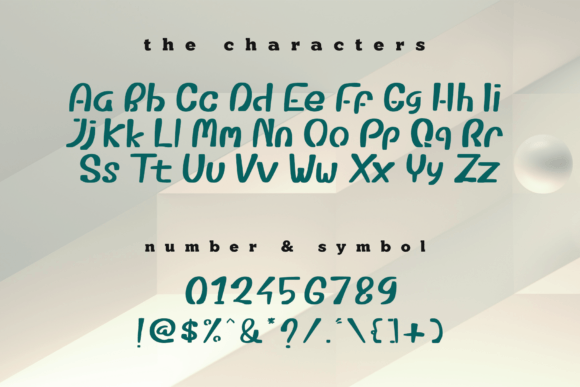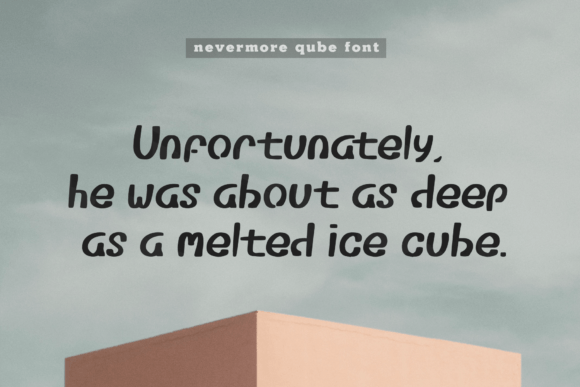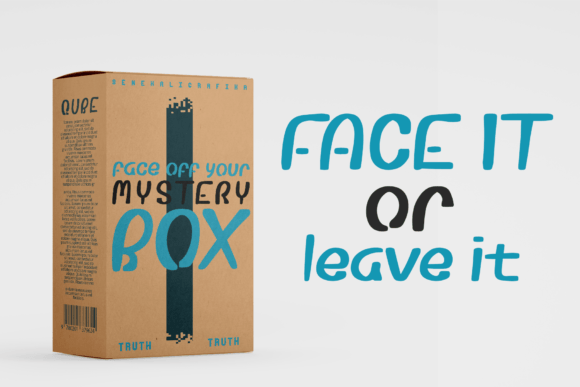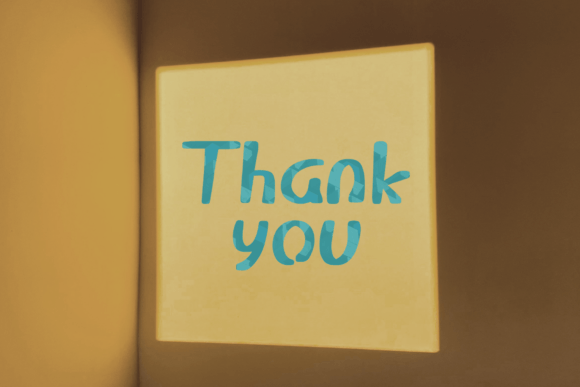
Introduction to Nevermore Qube Font
“NEVERMORE QUBE” has hard strokes and a signature style that speaks to instant unique sensation.
Take your creative projects to the highest level with this font “NEVERMORE QUBE” will help you to create special and touching typographical designs for your projects, for every day or the happiest day in your life, greeting cards, headings, flyers, product packaging, book cover, printed quotes, logos, and many more.
Nevermore Qube Font offers exceptional quality and versatility, making it a valuable addition to your design toolkit. Whether you’re creating for personal projects or commercial use, Nevermore Qube Font delivers professional results.